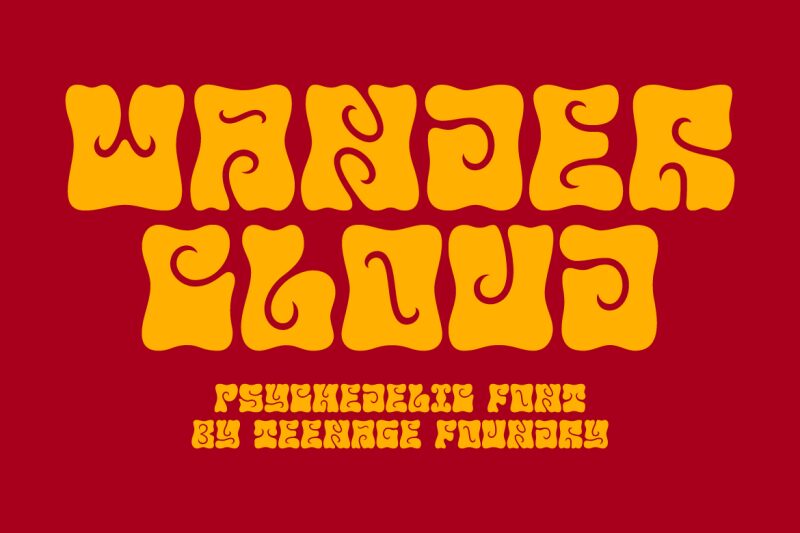
TF Wander Cloud font by Teenage Foundry is a groovy typeface with an unusual appearance and playful character. It provides a fluid appearance and dynamic fonts with a retro influence in the style of the 1960s. Inspired by the hippie culture, wanderers, and freestyle life, this font is therefore perfect for expressing an artistic and creative vibe.
Use this font for branding or design projects related to music, lifestyle, cafes, hotels, and similar. Because of its bold presence and organic shapes, the font will be mostly suitable for titles and tagline texts.